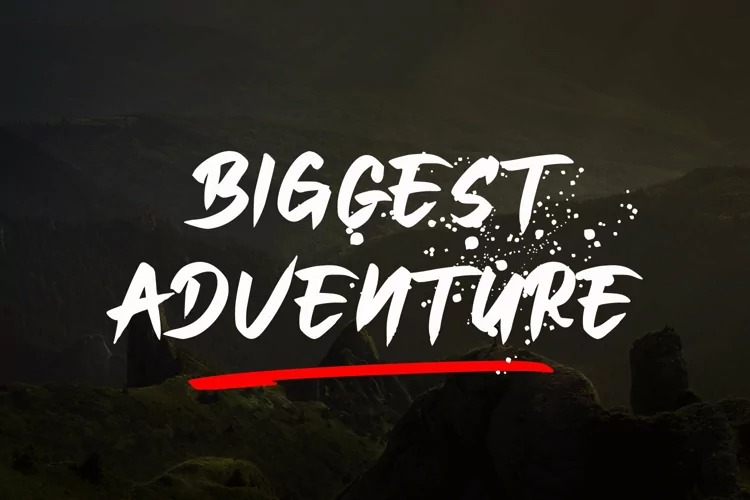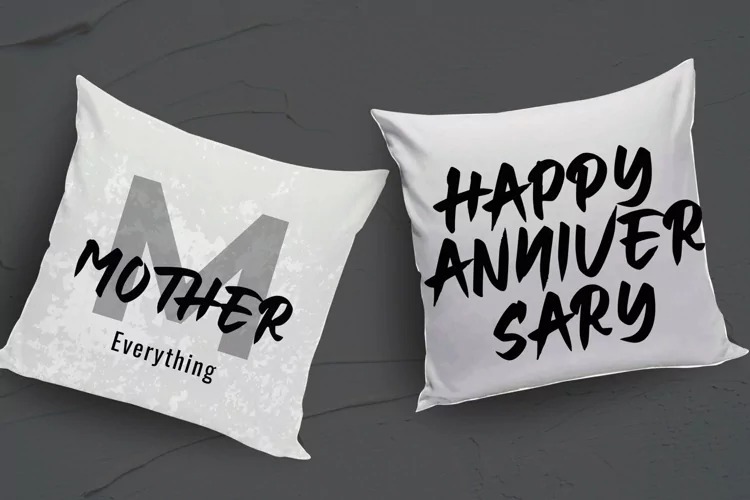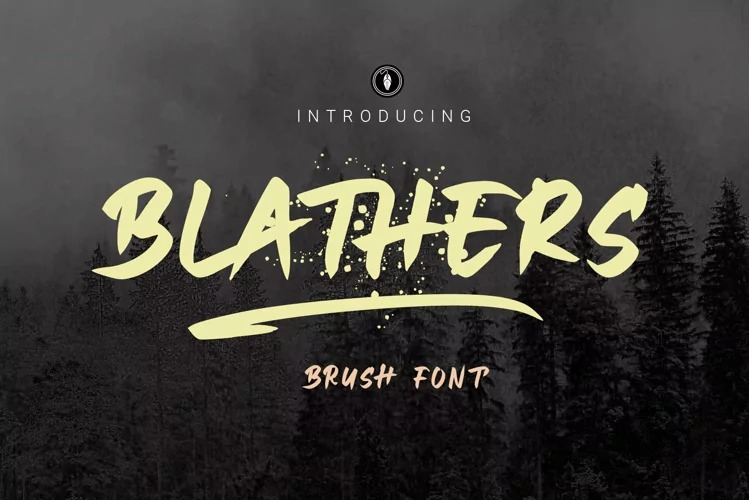
Blathers Font
Blathers Brush Font
This is a cool-looking brush font package by Bandofol studio. Bold and a little bit quirky, this font is also suitable for any project such as: logos, branding projects, homeware design, product packaging, mugs, quotes, posters, shopping bags, t-shirts, book covers, business cards, invitation cards, greeting cards, labels, photography, watermarks, special events and all other beautiful projects that require a strong, elegant and modern taste.